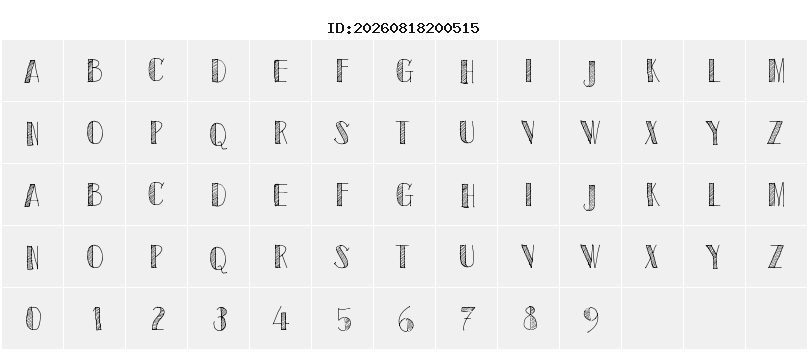
Sketch Toronto Preview
• Font Name: Sketch Toronto
• Designer: Galdino Otten
Sketch Toronto.otf is a modern, elegant sans-serif font designed for ultimate readability and visual harmony. Perfect for branding, headlines, web design, and print materials.